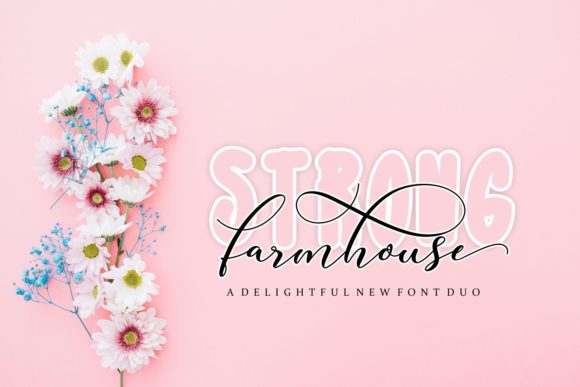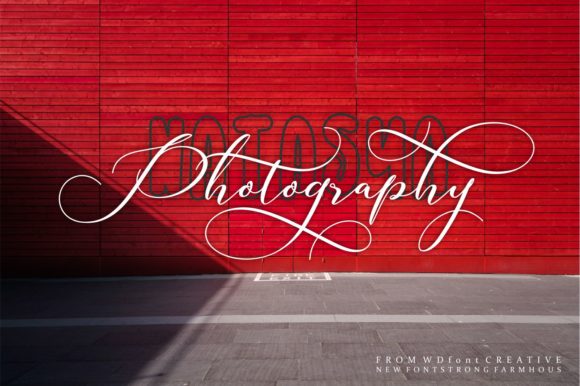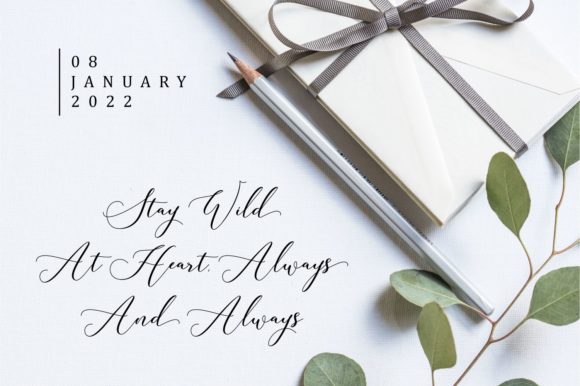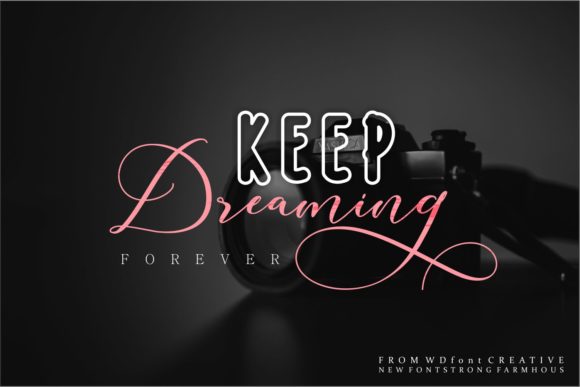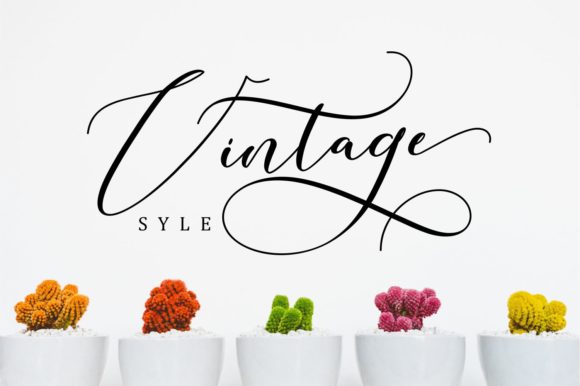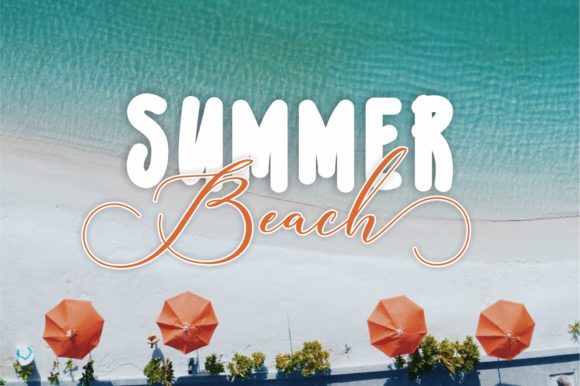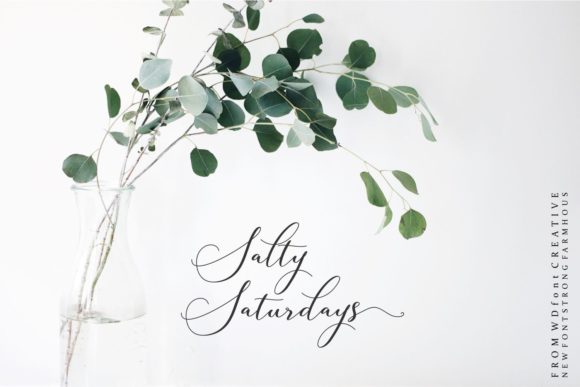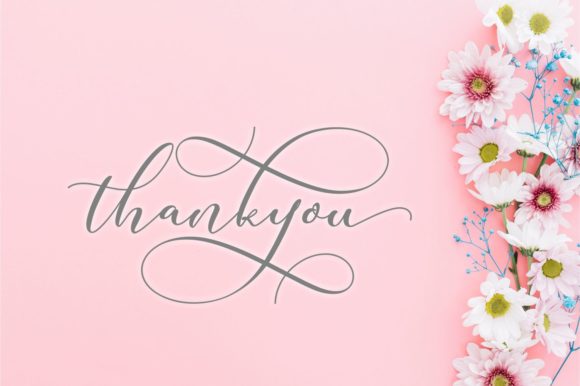
Strong Farmhouse Duo Font
About Strong Farmhouse Duo Font
The Strong Farmhouse is a beautiful, smooth handwritten duo. It includes an elegant script version and a striking sans version. Both styles can be combined perfectly but are also amazing as strong stand-alones.